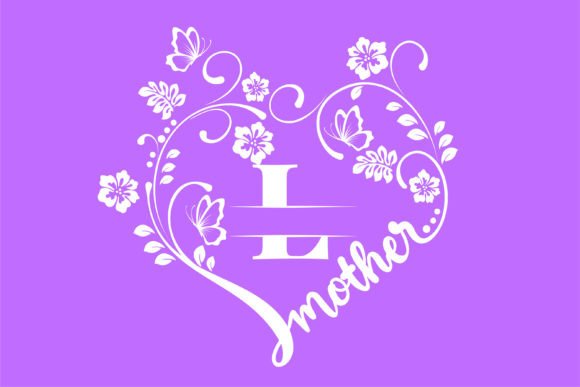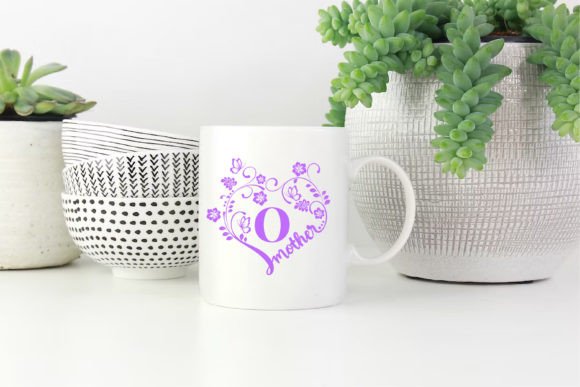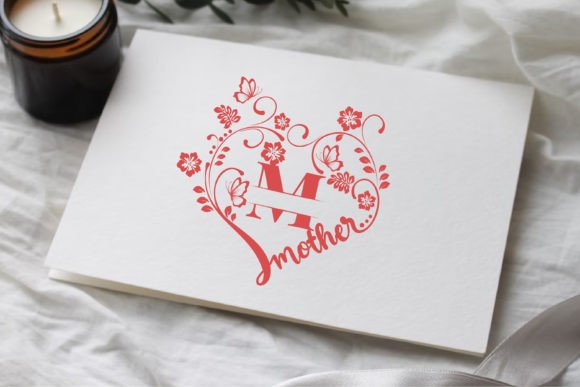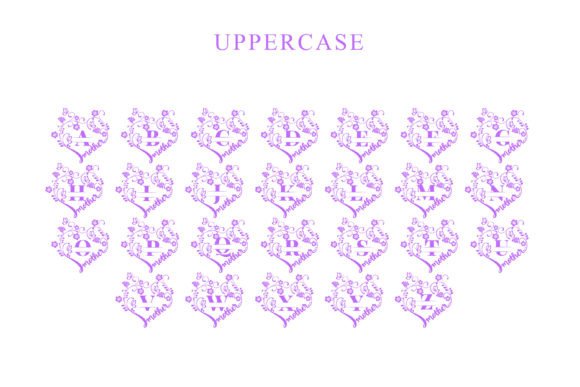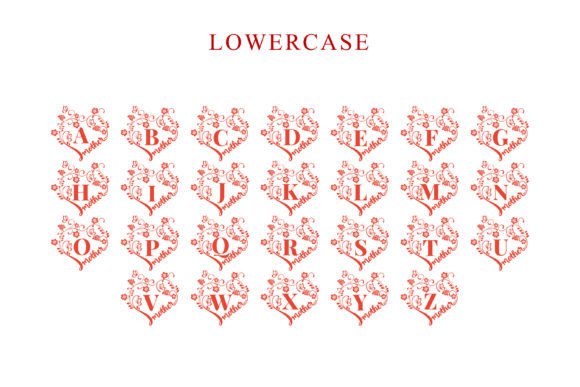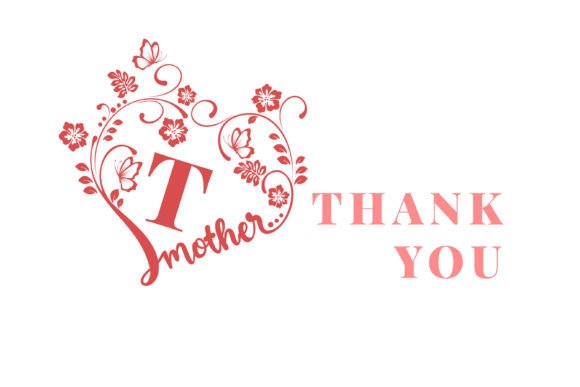
Introduction to Mother Love Font
Have you ever stumbled upon a font that makes you feel all warm and fuzzy inside? That’s exactly what happened to me when I discovered the Mother Love Font. I was working on a creative project, designing a set of personalized birthday cards for my little ones, and I was on the hunt for the perfect font to match their playful and sweet nature.
As I scrolled through my design resources, I finally came across the Mother Love Font, and I knew I had found the one. Its charming ornaments and authentic feel immediately caught my attention, and I couldn’t wait to start creating with it. Whether you’re a seasoned designer or just starting out, the Mother Love Font is a valuable addition to your design arsenal, offering a high-quality and versatile solution for all your creative needs.
Key Features of Mother Love Font
- High-quality design resource with a unique, hand-drawn style perfect for creative projects.
- Comes with a transparent background, allowing for easy customization and layering in design software.
- Designed with a high level of detail and intricacy, making it suitable for a variety of design projects, from invitations to branding materials.
Honest Review: Mother Love Font
I recently stumbled upon the Mother Love Font while searching for a design resource to enhance my creative project. After giving it a try, I must say I was impressed by its quality.
- ✨ The font is beautifully designed with a warm, feminine touch, making it perfect for projects that require a gentle and caring vibe.
- ✨ The transparent background allows for seamless integration with various design elements, giving you more creative control.
- ✨ The high-quality design ensures that the font looks great in both digital and print formats.
- ⚠️ The font is a bit limited in terms of the number of characters and glyphs available, which might be a drawback for some users.
- ⚠️ The font’s readability can be affected by the size and formatting of the text, so be sure to experiment with different settings to achieve the best results.
Tips for Getting the Most Out of Mother Love Font
Use the Mother Love Font in conjunction with other design resources, such as images and graphics, to create a cohesive and professional look. Experiment with different font sizes and colors to add depth and interest to your designs. Don’t be afraid to get creative and try out new things!
The Mother Love Font is perfect for personal projects, such as creating invitations, greeting cards, and other paper crafts. It’s also great for business projects, such as creating professional-looking documents and presentations. With its high quality and transparent background, the Mother Love Font is a versatile design resource that can be used in a variety of creative projects.
Can I use the Mother Love Font for web design?